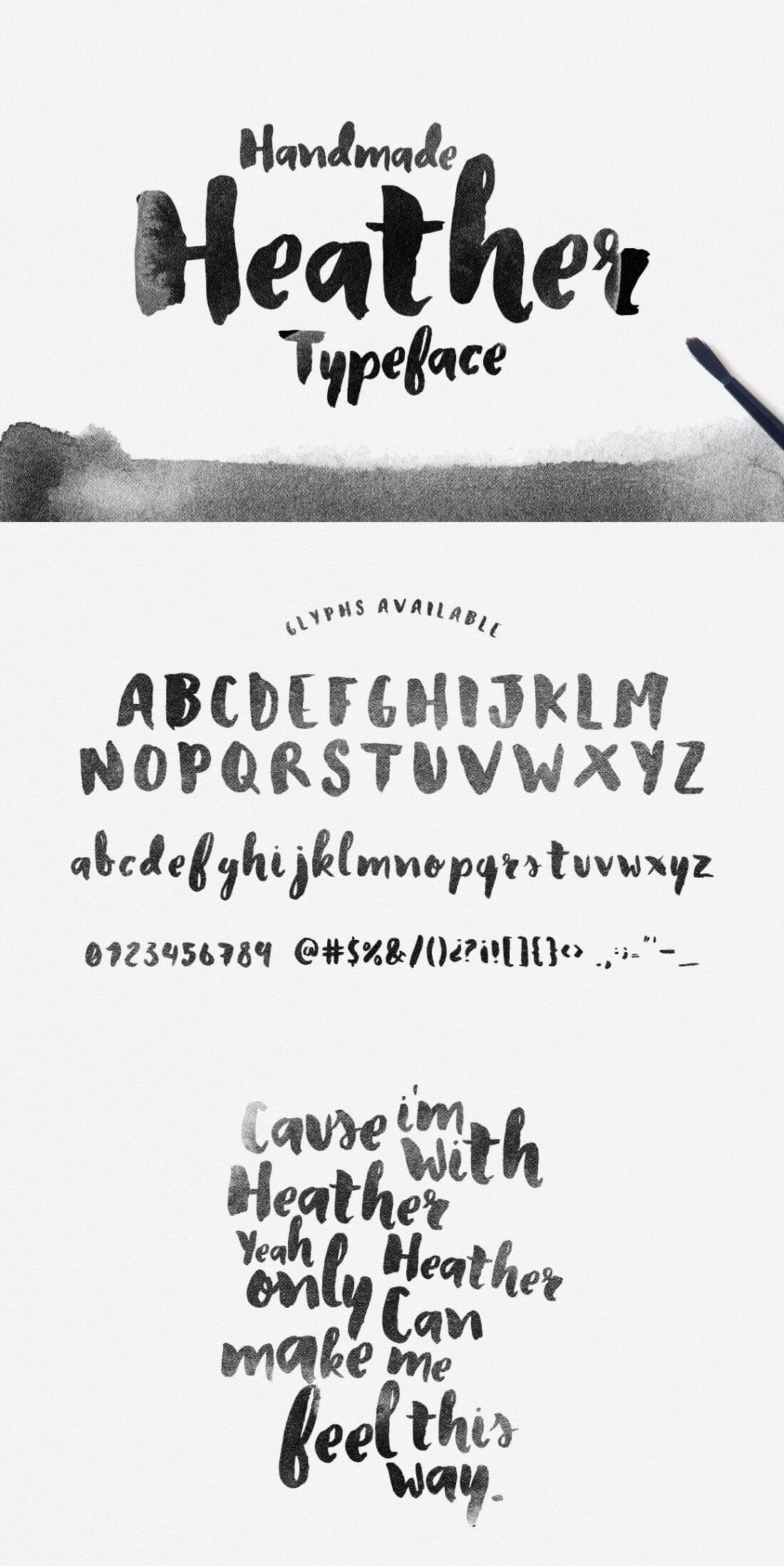
Introducing the sensational Massive 30 Fonts Bundle! Refresh your graphic design career with this massive font bundle of 30 best selling fonts, from the best font creators in the world! We've partnered up with highly talented font creators to bring you a font bundle that you have only dreamed of.
Monthoers Typeface
Monthoers is a handmade modern vintage textured display typeface, which combines the style of classic typography with the modern handlettering style.
Celestial Vintage Typeface + Bonus Vectors
Celestial Typeface is handmade Victorian handlettering, which is combining modern and classic typography with some awesome features. Yes we’re back to early 1800s, bring classic touch on this decade.
Sweethart Script + Vectors
Sweethart is a fun & flirty script font with some rad bonuses! It’s fat-to-thin brush strokes and imperfect baseline give it a fun and stylish aesthetic perfect for typography, branding, logo design, invitations, and prints.
Blingtastic Script
Blingtastic Script is modern & clean calligraphy script, with characters dance along the baseline & elegant touch. Can be used for various purposes such as logos, wedding invitation, heading, t-shirt, letterhead, signage, lable, news, posters, badges etc.
Helena Font
Give your designs an authentic handcrafted feel! Helena is perfectly suited to stationery, logos and much more. Includes 10 Bonus Brushes for Photoshop.
Banthers Typeface
Banthers is handmade modern vintage mono-line display typefaces, which is combining the style of classic typography with an modern handlettering style.
Againts Typeface
Againts Typeface was inspired from ink & tints manual handdrawn brush to make a natural mess.
Moabhoers Typeface
Moabhoers is a handmade modern vintage display typeface and combines the style of classic typography with the modern handlettering.
Anemone Script
Presenting you to a stunning font! 100% hand painted. Ultra suitable for the design of logos, creation of invitations, greeting card and more.
Neaments Typeface
Re-introducing "Sortdecai Handmade Script" under the name Neaments. This superb script font completes the Monthoers and Banthers Typefaces.
Florabella Script
Florabella is a new handmade script font with an irregular baseline. Rough edges, trendy look and harmony. Florabella looks lovely on wedding invitations, thank you cards, quotes, greeting cards, logos, business cards and more. Perfect for using in ink or watercolor.
Bistro Sans & Serif + Extras
Bistro Sans & Serif is a hand crafted font that's inspired by the chill vibes of your local cafe. It's full of those hand-written imperfections that make your designs come to life! The three weights can be enhanced with a bi-color interior, fill, line, or slant to give your design that vintage or quirky feel. To do so, simply superimpose the two fonts: the weight above, the interior below. This sans serif is perfect for invitations, wedding elements, typography, and prints.
Karla Script
Karla Script - an amazing new hand crafted with a lot of love, ink and my crazy hand. Perfect font to create wedding cards, postals, vintage logotype, quote images or anything you can imagine or create with Karla.
Wonderwall Font & Alphabetical Brush
Wonderwall font comes from manual typographic and transparent watercolor, trying to make a case characters irregular but with a touch of harmony. Suitable for making crafts manual arts, wedding cards etc.
Billow Font + Extras
Billow is a bold and beautiful hand lettered font with oodles of extras! It's imperfect baseline and thin-to-fat characters give it a fun and stylish aesthetic perfect for typography, branding, logo design, invitations, prints, and wedding elements. It's unrefined. It's spontaneous. It's imperfectly perfect!
Basic Rough Typeface
Make powerful, original, unique, waterbrush design with this font. Basic Rough comes with amazing authentic texture style, combined with a bonus pack you can create many designs like gig, poster, invitation, or anything you want. Show your displays with this original artsy font.
Beverly Script
This is a wonderful font drawn by hand and with love! Beverly can be used for fashion, invitations, business cards, design and much more.
Adrift Font Family
Adrift is a handsomely hand-lettered font family inspired by the hopeless wanderer inside of all of us. It includes 3 weights (regular, medium and bold). This sans serif is perfect for logos, typography, prints, and t's. Keep it classic or add some flair to your project with one of the 17 alternate letters included!
Begonia Script
We present you a stunning font, Begonia script. 100% hand painted. Very suitable for the design of logos, creation of invitations, greeting card and more.